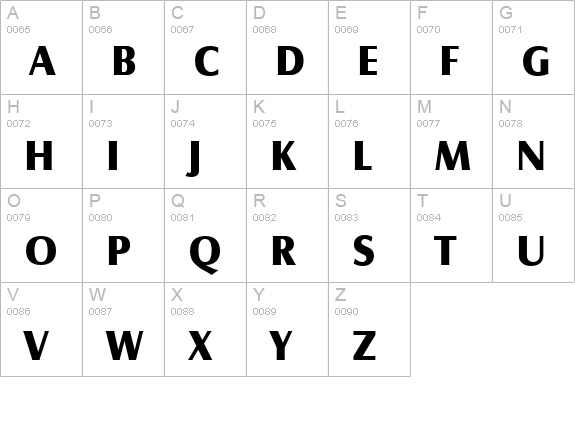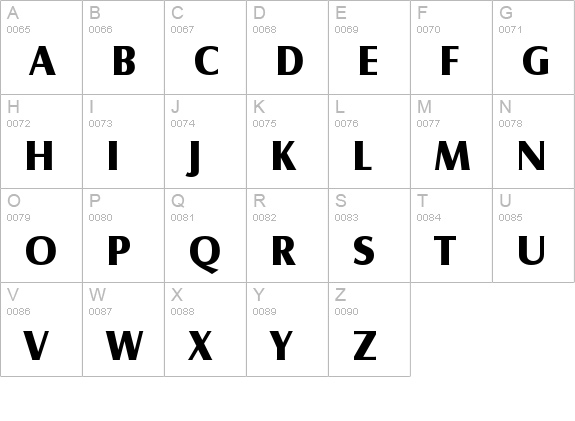
SalzburgSerial-Xbold-Regular is the standard, neutral variant in the SalzburgSerial typeface family \xE2\x80\x94 well suited to general body text, paragraphs, and standard typographic work.
SalzburgSerial-Xbold-Regular is a versatile and elegant font that exudes a sense of modernity and sophistication. Its clean lines and bold appearance make it a perfect choice for titles, headings, and other prominent text elements. The strong presence of this font commands attention and adds a touch of professionalism to any design project. What sets SalzburgSerial-Xbold-Regular apart is not only its striking appearance but also the fact that it is available for free download at FontsMarket.com. This means that you can easily access this high-quality font without any cost, making it a valuable addition to your font collection. Whether you are working on a branding project, advertising campaign, or any creative endeavor, SalzburgSerial-Xbold-Regular offers a timeless and impactful typographic solution. Download it for free today and elevate your designs with this exceptional font.